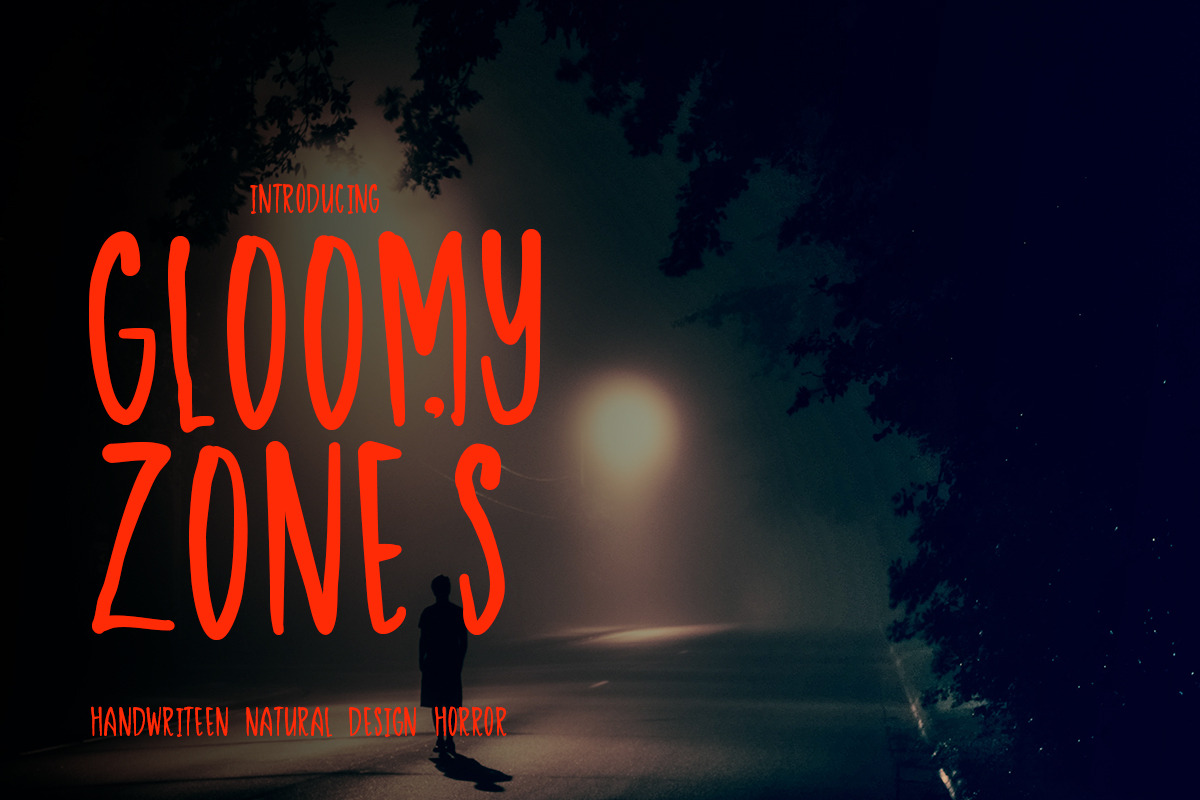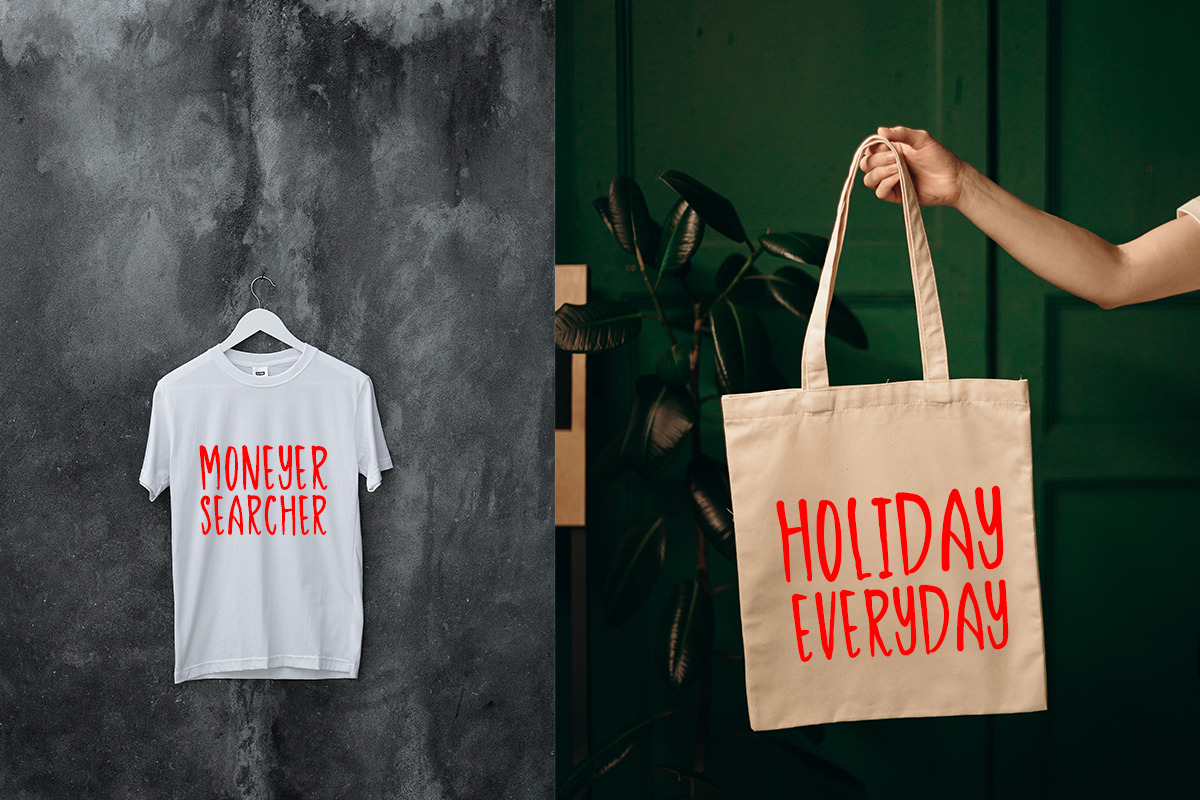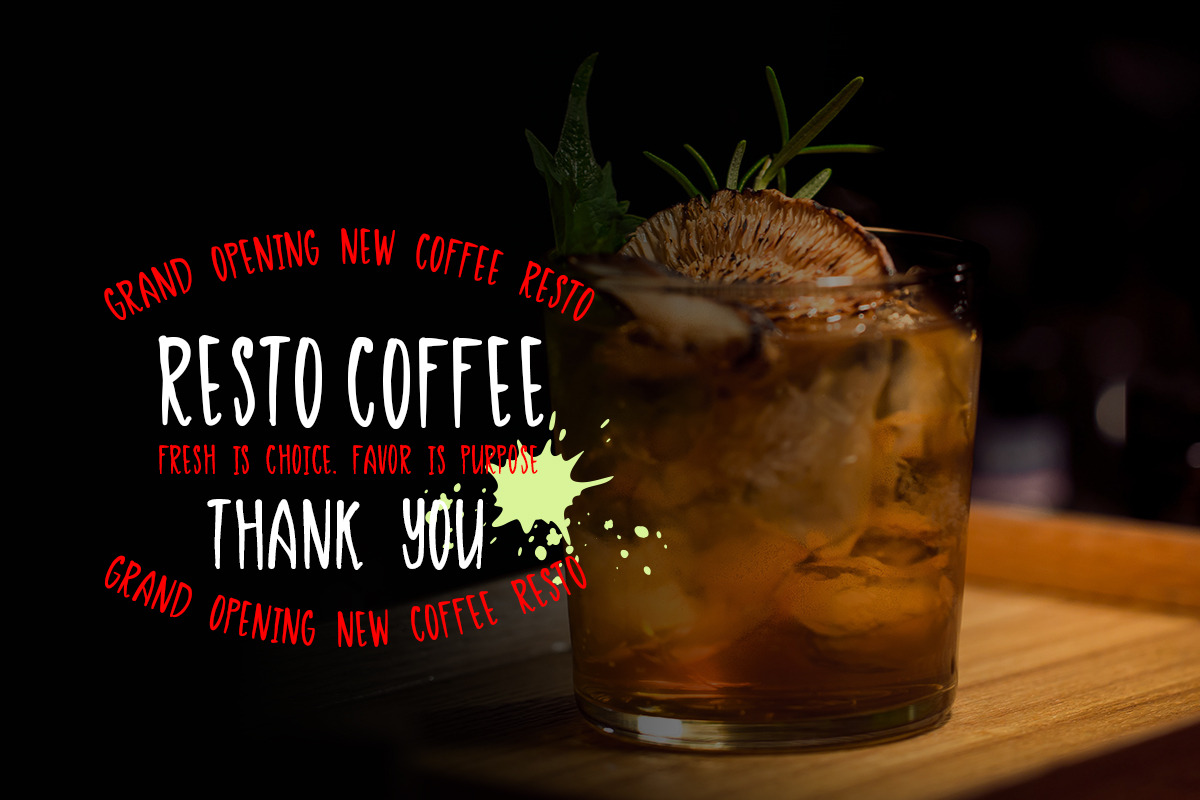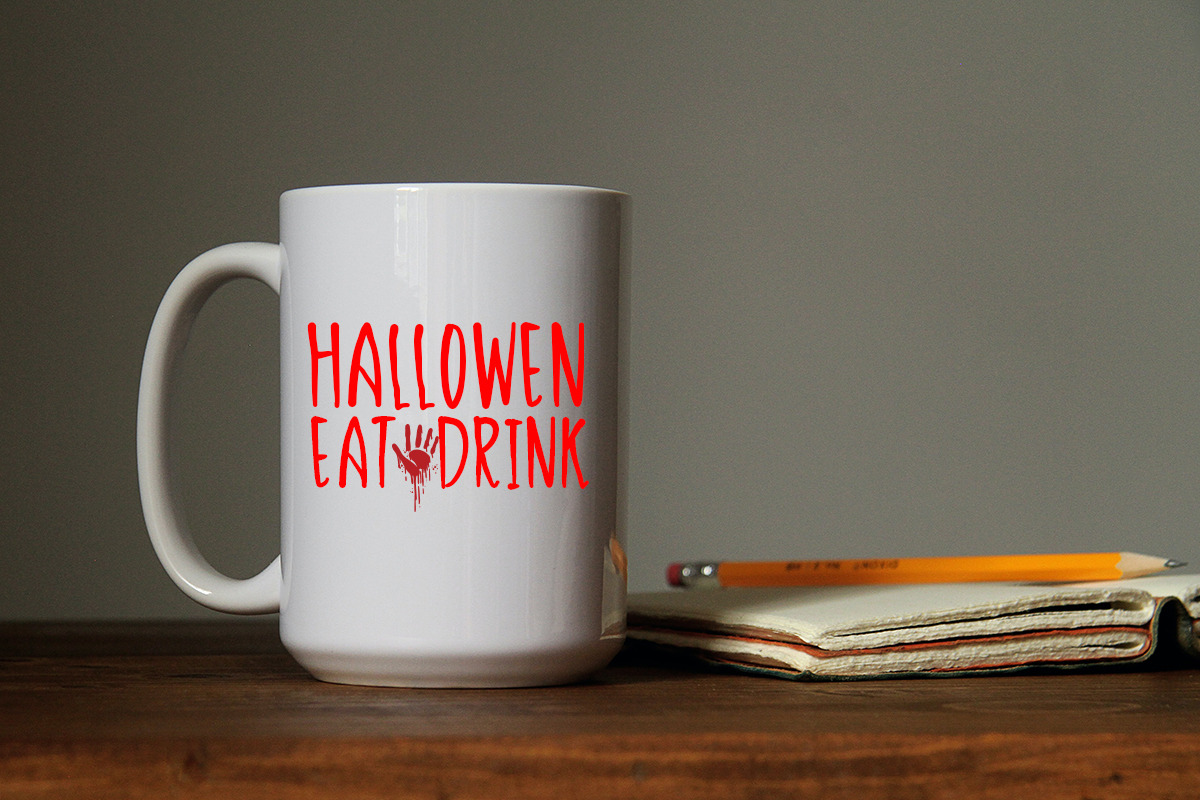
Gloomy Zones
This is a natural, beautiful and very charming handmade font, this font looks very stylish, the impression and purpose is achieved perfectly, very suitable for all types of designs, books, illustrated paper, invitations, printed media, greeting cards, and many more